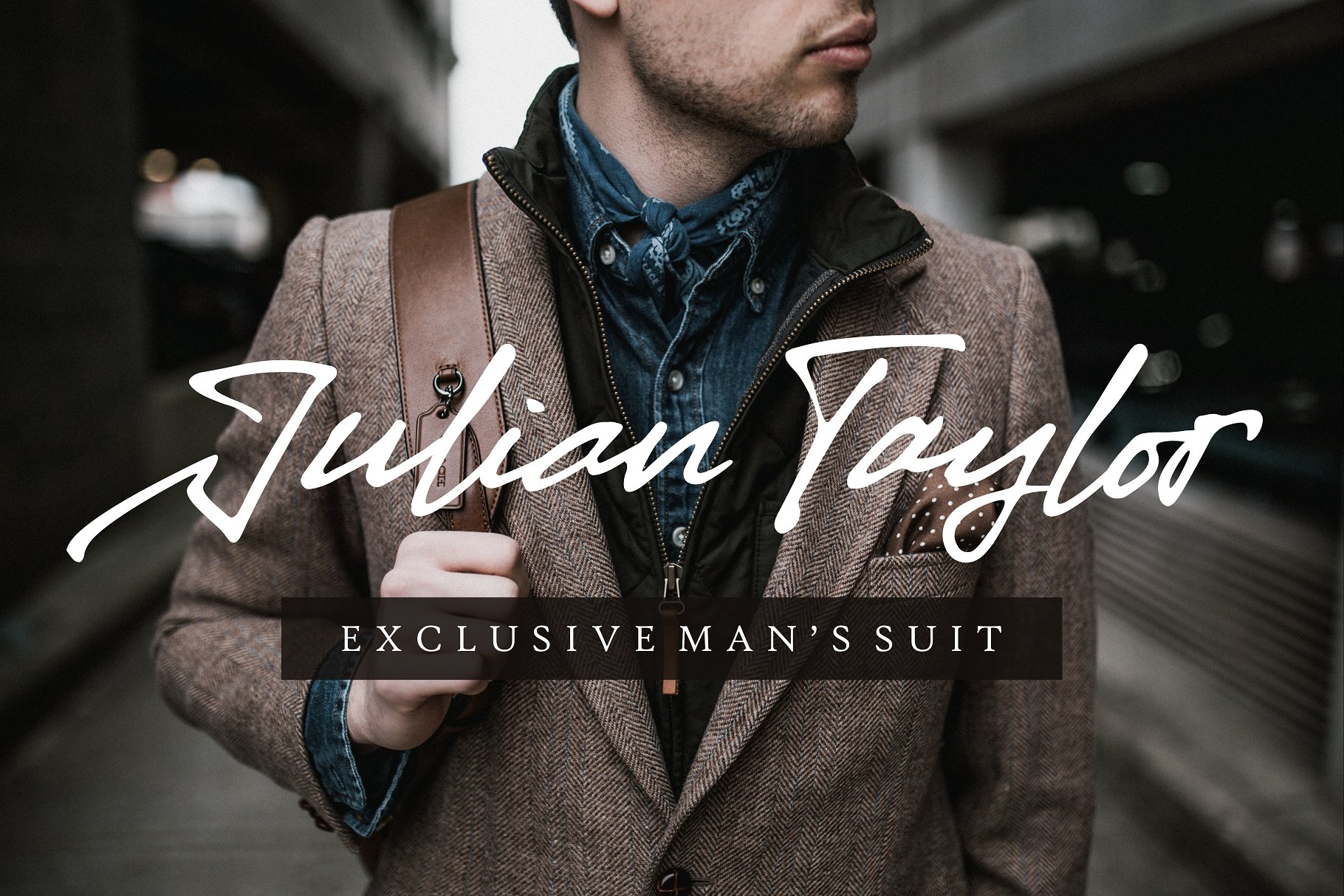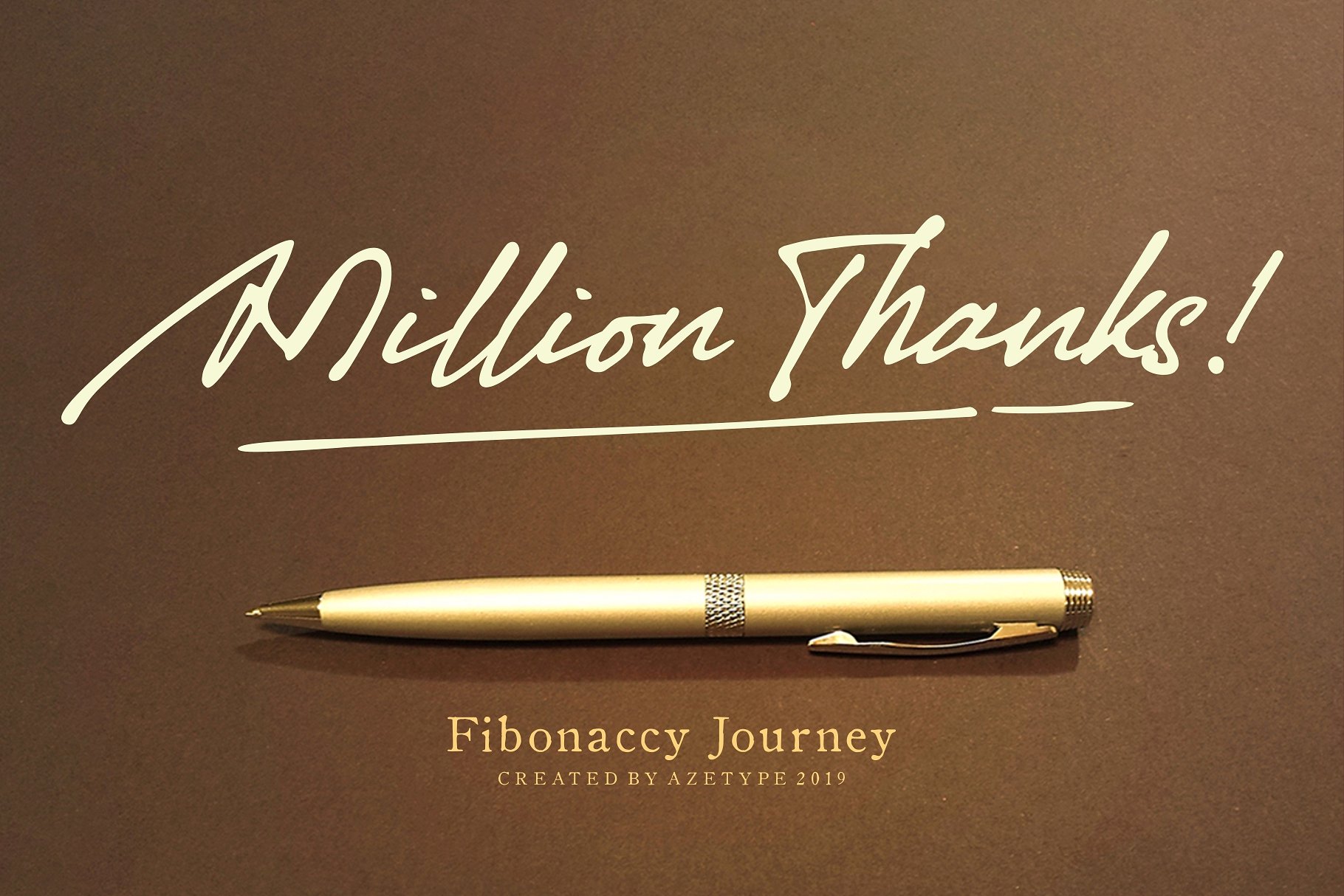
50+ Journey Script Font Free PNG. Fibonaccy journey font free for personal use, please visit his store for more other products, and buying fonts support him. This is the demo version. Looking for journey script fonts? Dear visitor, you went to the site as unregistered user. This is a special script with a touch of handwritten ink texture. This font is free for personal use only, full version and commercial use: Fibonaccy journey font free for personal use, please visit his store for more other products, and buying fonts support him. A manuscript font crafted carefully. We encourage you to create a free account and login. Journey script font 1010736 otf ttf woff | 197 mb rar. Based on original signature hand scratches that looks classy and vintage style. ✓ click to find the best 6 free fonts in the journey script style. Created and shared by brandspark. Journey is a soft brush font suitable for titles, logos, prints, headers, quotes, etc. And a unique quote style.
Fibonaccy Journey Script Font Dafont Free. A manuscript font crafted carefully. And a unique quote style. We encourage you to create a free account and login. Fibonaccy journey font free for personal use, please visit his store for more other products, and buying fonts support him. This is a special script with a touch of handwritten ink texture. ✓ click to find the best 6 free fonts in the journey script style. Dear visitor, you went to the site as unregistered user. Looking for journey script fonts? Based on original signature hand scratches that looks classy and vintage style. This font is free for personal use only, full version and commercial use: This is the demo version. Journey script font 1010736 otf ttf woff | 197 mb rar. Fibonaccy journey font free for personal use, please visit his store for more other products, and buying fonts support him. Journey is a soft brush font suitable for titles, logos, prints, headers, quotes, etc. Created and shared by brandspark.
Fibonaccy journey font free for personal use, please visit his store for more other products, and buying fonts support him. Journey is packed with alternate charac. They are organized into highly regular formal types similar to cursive writing and looser, more casual scripts. Journey has a minimum three alternatives to every basic letter: Homepage fonts categories fonts online script. Created and shared by brandspark. Journey is a smooth and elegant vintage script family of four weights and a matching ornament set.
Journey is a smooth and elegant vintage script family of four weights and a matching ornament set. email protected 138 views, 30 downloads share share share. So you can use these fonts for your logos, clothing, banners, posters, or even youtube thumbnails! They are organized into highly regular formal types similar to cursive writing and looser, more casual scripts. Demo donationware free free for personal use public domain, gpl, ofl shareware. Now the font can be used in any text editor, without difficulties and dances with a tambourine. But, professional designers know the ultimate typeface when they see it. Handwritten, brush script, calligraphy fonts. To activate the alternates click on swash, stylistic or titling alternates in any opentype. This font is free for personal use only. If you want to support the author, the font can be purchased on creative market. Dear visitor, you went to the site as unregistered user. This is a special script with a touch of handwritten ink texture. Based on original signature hand scratches that looks classy and vintage style. Journey script font 1010736 otf ttf woff | 197 mb rar. All of these fonts are 100% free, both for personal and commercial uses. Fibonaccy journey font free for personal use, please visit his store for more other products, and buying fonts support him. ✓ click to find the best 6 free fonts in the journey script style. Journey is a smooth and elegant vintage script family of four weights and a matching ornament set. Font name newest most downloads. Browse by alphabetical listing, by style, by author or by popularity. Today i am showcasing top 25 best & beautiful script fonts of 2012. Script journey script script bd bd script beauty salon script ronde script everglow script lumen script everglow script free molly script absolut script legend. This font is free for personal use only, full version and commercial use: Journey is a smooth and elegant vintage script family of four weights and a matching ornament set. And a unique quote style. Created and shared by brandspark. Download free fonts for graphic design, blogging, stationery and craft. Fibonaccy journey font free for personal use, please visit his store for more other products, and buying fonts support him. We always hunt for new and innovative fonts to make our designs and documents look expressive and all the more eloquent in appearance. Thousands of free script fonts can be found on the internet, and those may all look alike to an untrained eye.
Creative Fabrica Premium Crafting Fonts Graphics More. This is the demo version. We encourage you to create a free account and login. And a unique quote style. Fibonaccy journey font free for personal use, please visit his store for more other products, and buying fonts support him. Fibonaccy journey font free for personal use, please visit his store for more other products, and buying fonts support him. Journey script font 1010736 otf ttf woff | 197 mb rar. Based on original signature hand scratches that looks classy and vintage style. ✓ click to find the best 6 free fonts in the journey script style. A manuscript font crafted carefully. Journey is a soft brush font suitable for titles, logos, prints, headers, quotes, etc. Looking for journey script fonts? Created and shared by brandspark. Dear visitor, you went to the site as unregistered user. This is a special script with a touch of handwritten ink texture. This font is free for personal use only, full version and commercial use:
Fibonaccy Journey Script Font Free Fonts. A manuscript font crafted carefully. Journey script font 1010736 otf ttf woff | 197 mb rar. Dear visitor, you went to the site as unregistered user. ✓ click to find the best 6 free fonts in the journey script style. This font is free for personal use only, full version and commercial use: And a unique quote style. Looking for journey script fonts? This is a special script with a touch of handwritten ink texture. This is the demo version. Fibonaccy journey font free for personal use, please visit his store for more other products, and buying fonts support him. Based on original signature hand scratches that looks classy and vintage style. Journey is a soft brush font suitable for titles, logos, prints, headers, quotes, etc. We encourage you to create a free account and login. Created and shared by brandspark. Fibonaccy journey font free for personal use, please visit his store for more other products, and buying fonts support him.
18 Beautiful Free Premium Script Fonts Elegant Themes Blog. Looking for journey script fonts? This is a special script with a touch of handwritten ink texture. Based on original signature hand scratches that looks classy and vintage style. Fibonaccy journey font free for personal use, please visit his store for more other products, and buying fonts support him. ✓ click to find the best 6 free fonts in the journey script style. Journey script font 1010736 otf ttf woff | 197 mb rar. Created and shared by brandspark. And a unique quote style. Dear visitor, you went to the site as unregistered user. Fibonaccy journey font free for personal use, please visit his store for more other products, and buying fonts support him. Journey is a soft brush font suitable for titles, logos, prints, headers, quotes, etc. This font is free for personal use only, full version and commercial use: A manuscript font crafted carefully. This is the demo version. We encourage you to create a free account and login.
Creative Fabrica Premium Crafting Fonts Graphics More. Fibonaccy journey font free for personal use, please visit his store for more other products, and buying fonts support him. And a unique quote style. ✓ click to find the best 6 free fonts in the journey script style. This font is free for personal use only, full version and commercial use: Based on original signature hand scratches that looks classy and vintage style. Dear visitor, you went to the site as unregistered user. Fibonaccy journey font free for personal use, please visit his store for more other products, and buying fonts support him. Journey is a soft brush font suitable for titles, logos, prints, headers, quotes, etc. This is the demo version. This is a special script with a touch of handwritten ink texture. Created and shared by brandspark. Looking for journey script fonts? We encourage you to create a free account and login. A manuscript font crafted carefully. Journey script font 1010736 otf ttf woff | 197 mb rar.
Fibonaccy Journey Script Font Befonts Com. Looking for journey script fonts? Based on original signature hand scratches that looks classy and vintage style. ✓ click to find the best 6 free fonts in the journey script style. And a unique quote style. Dear visitor, you went to the site as unregistered user. Fibonaccy journey font free for personal use, please visit his store for more other products, and buying fonts support him. We encourage you to create a free account and login. Journey script font 1010736 otf ttf woff | 197 mb rar. Journey is a soft brush font suitable for titles, logos, prints, headers, quotes, etc. Created and shared by brandspark. This is the demo version. This font is free for personal use only, full version and commercial use: Fibonaccy journey font free for personal use, please visit his store for more other products, and buying fonts support him. A manuscript font crafted carefully. This is a special script with a touch of handwritten ink texture.
Browse by alphabetical listing, by style, by author or by popularity. Very suitable for greeting cards, branding materials, business cards, quotes, posters, and more! To add tails to the words you just need to select the swashes font. We have a huge range of script products available. Journey is packed with alternate charac. Archive of freely downloadable fonts. Looking for journey script fonts? In the endless field of exquisite fonts, designers unmistakably recognize the one that perfectly suits their project. Journey is a soft brush font suitable for titles, logos, prints, headers, quotes, etc. Now the font can be used in any text editor, without difficulties and dances with a tambourine.